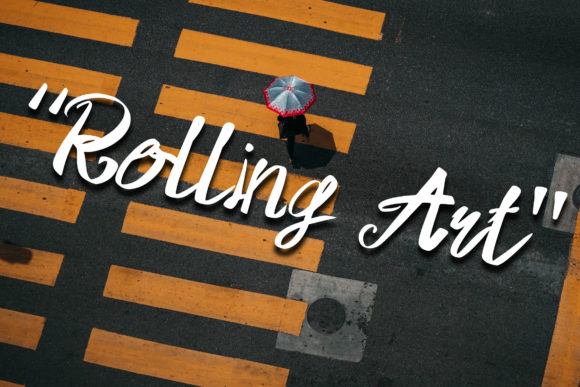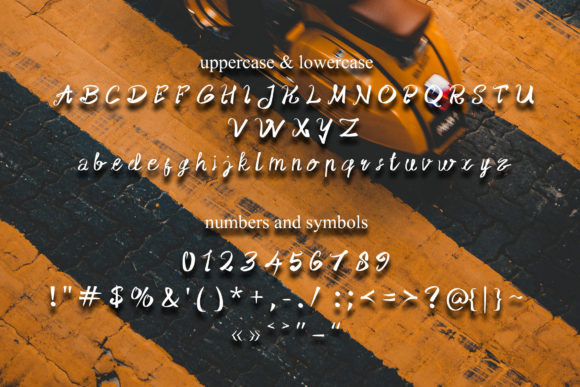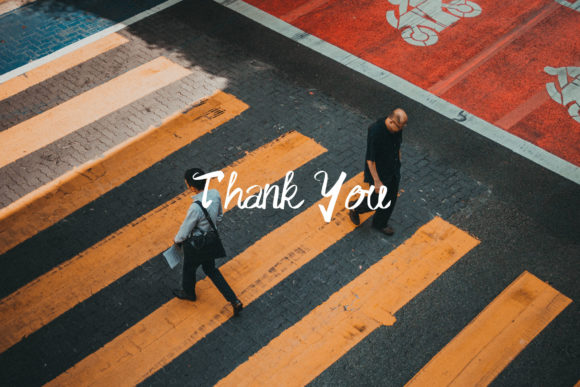
Introduction to Rolling Art Font
Have you ever been brainstorming ideas for a creative project and suddenly a font pops into your head, elevating the entire concept? For designers, this moment of inspiration is what drives us to push the boundaries of our work. One such font that has been making waves in the design community is the Rolling Art Font.
With its beautiful, high-quality design, the Rolling Art Font is a must-have for any creative project. Whether you’re designing invitations, greeting cards, branding materials, or business cards, this font is sure to add a touch of elegance and sophistication. And the best part? It’s available for free download, making it an accessible design resource for designers of all levels.
What sets the Rolling Art Font apart is its versatility and unique design. From transparent backgrounds to intricate details, this font is perfect for designers looking to add a creative twist to their work. In this article, we’ll dive deeper into the world of the Rolling Art Font and explore its many uses and benefits for designers.
Key Features of Rolling Art Font
- High-quality, unique font design ideal for creative projects
- Comes with a transparent background, allowing for easy layering and customization
- Supports a wide range of languages, making it a versatile design tool
- Designed with a high resolution (300 DPI) for crisp and clear display in various mediums
- Perfect for use in digital and print design, including logos, graphics, and typography
Honest Review: Rolling Art Font
I recently had the opportunity to work with the Rolling Art Font, and I must say it’s been a great addition to my design arsenal. The font is available for a free download, making it a fantastic resource for designers on a budget.
One of the standout features of the Rolling Art Font is its high quality. The characters are well-designed and have a smooth, consistent look. I particularly enjoyed using it for a creative project that required a fun and playful tone.
Some of the key features that I appreciated include:
- Transparent background: This made it easy to combine the font with other design elements without worrying about distracting backgrounds.
- Creativity: The Rolling Art Font has a unique style that lends itself well to creative projects.
- Design resource: The font is a great resource for designers who want to add some personality to their designs.
While the Rolling Art Font is a great resource, there are a few limitations to be aware of: ⚠️
- Some characters may not be suitable for formal or professional projects.
Overall, I’m impressed with the Rolling Art Font and would recommend it to designers looking for a fun and creative font to add to their projects. ✨
Rolling Art Font
Insert the Rolling Art Font into your PowerPoint or Word document and use it to create engaging presentations or documents. The font’s creative and playful style is perfect for adding a touch of personality to your design. With a free download, you can access the font without any restrictions.
Getting the Most Out of Rolling Art Font
Use the Rolling Art Font in combination with other design resources to create a cohesive and visually appealing design. Experiment with different colors, backgrounds, and text styles to get the most out of the font. Consider using the font in a variety of contexts, such as social media graphics, blog posts, or advertisements.
The Rolling Art Font is ideal for creative projects that require a unique and eye-catching design. Some common use cases include:
- Blog posts and articles
- Advertisements and marketing materials
Does the Rolling Art Font have a transparent background?
Yes, the Rolling Art Font has a transparent background, making it easy to use in designs with complex backgrounds or multiple layers. This feature also allows designers to easily customize the font to fit their specific design needs.